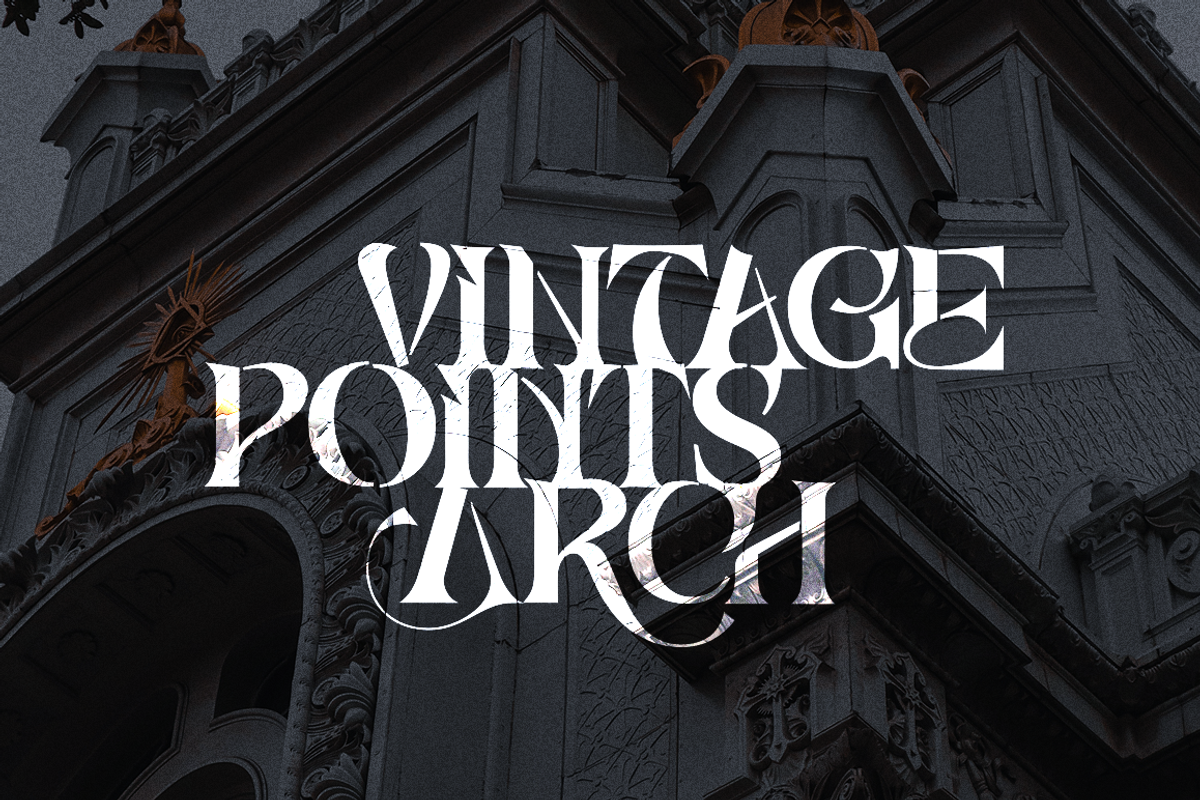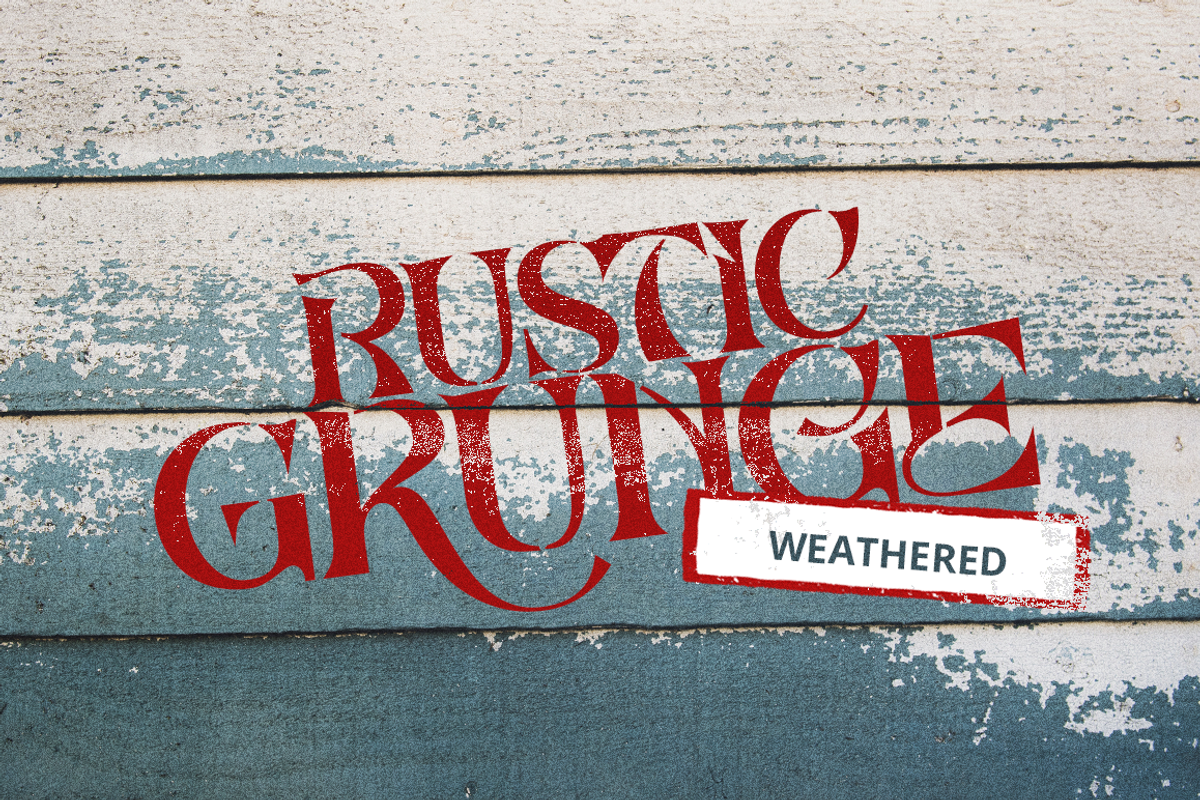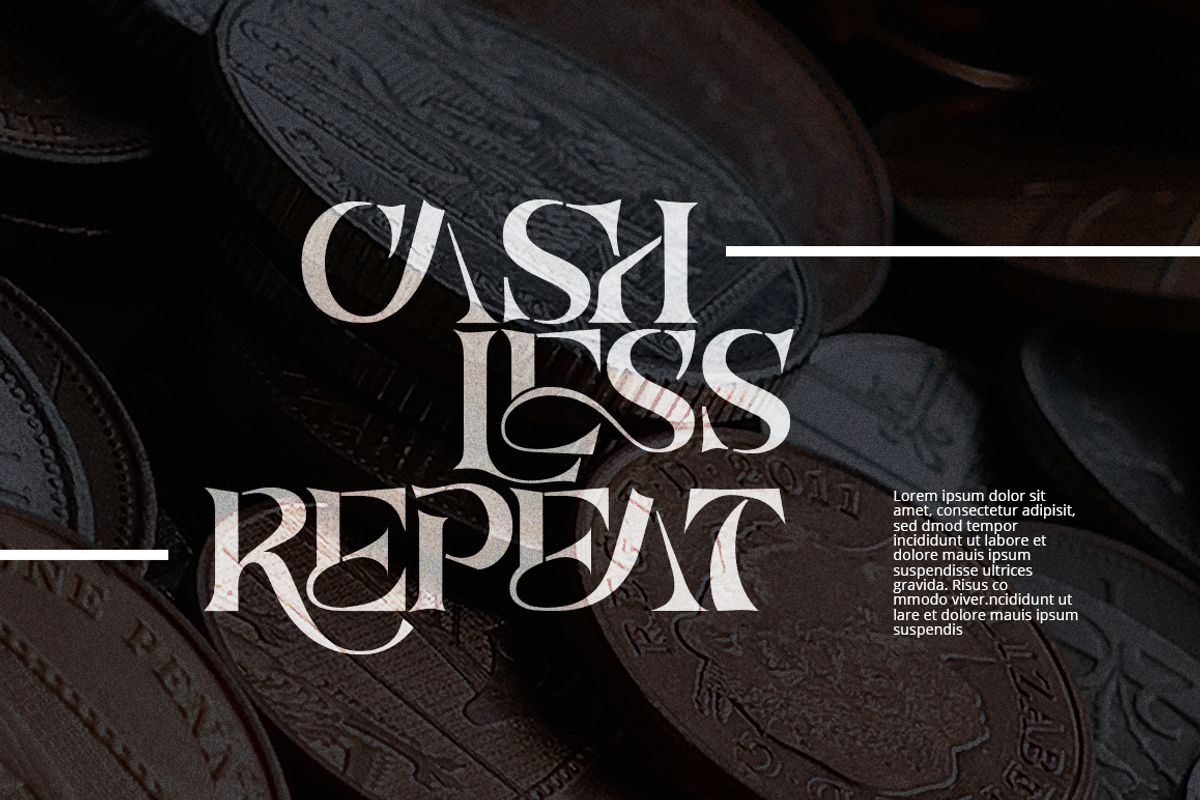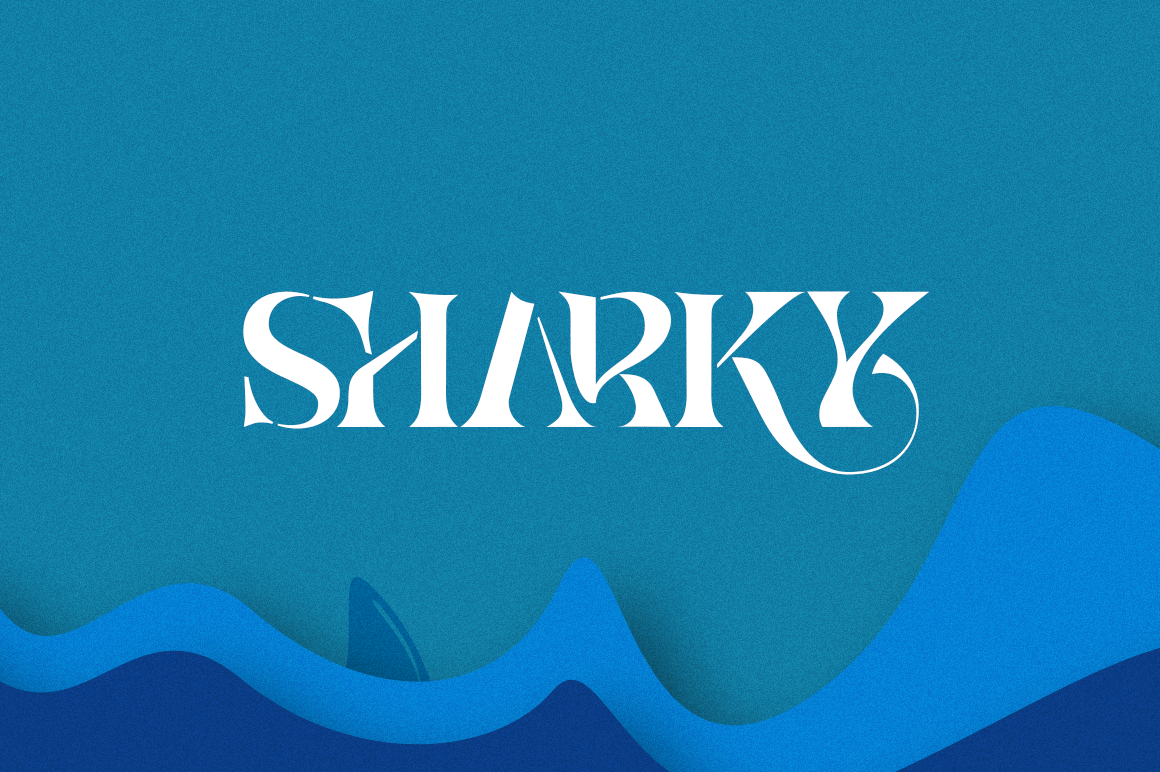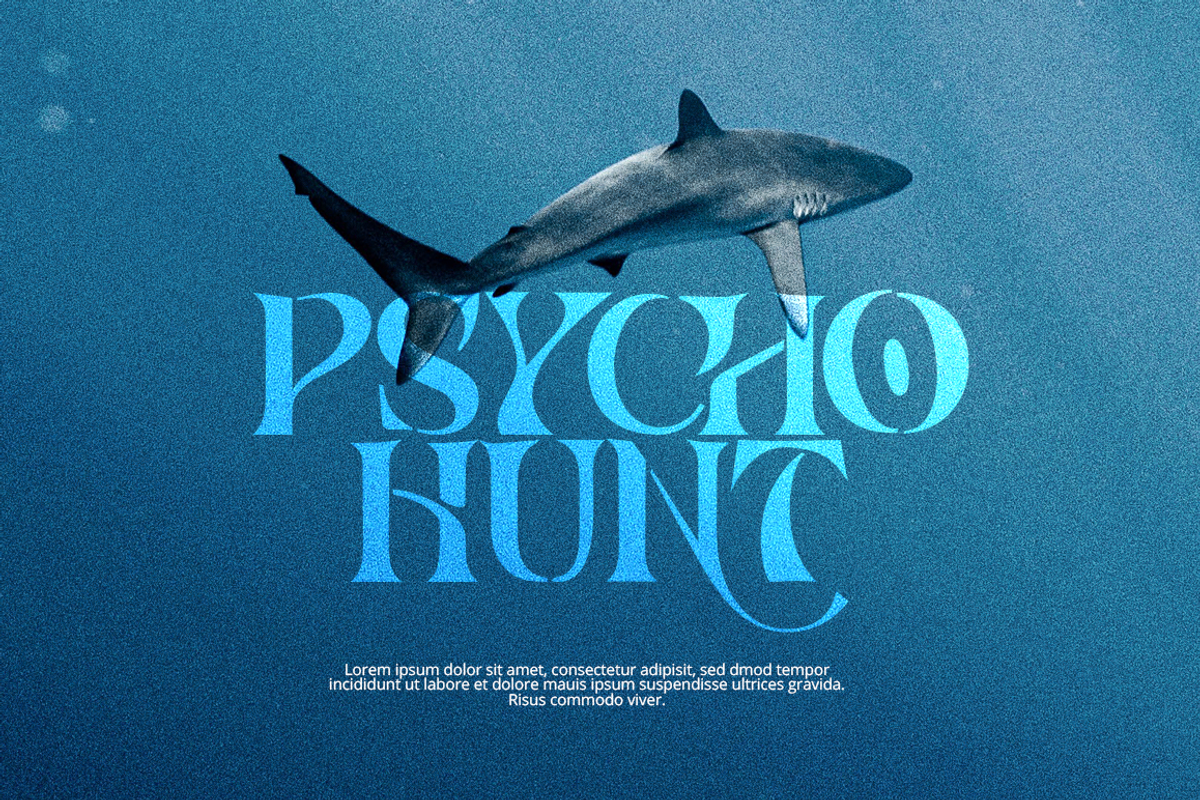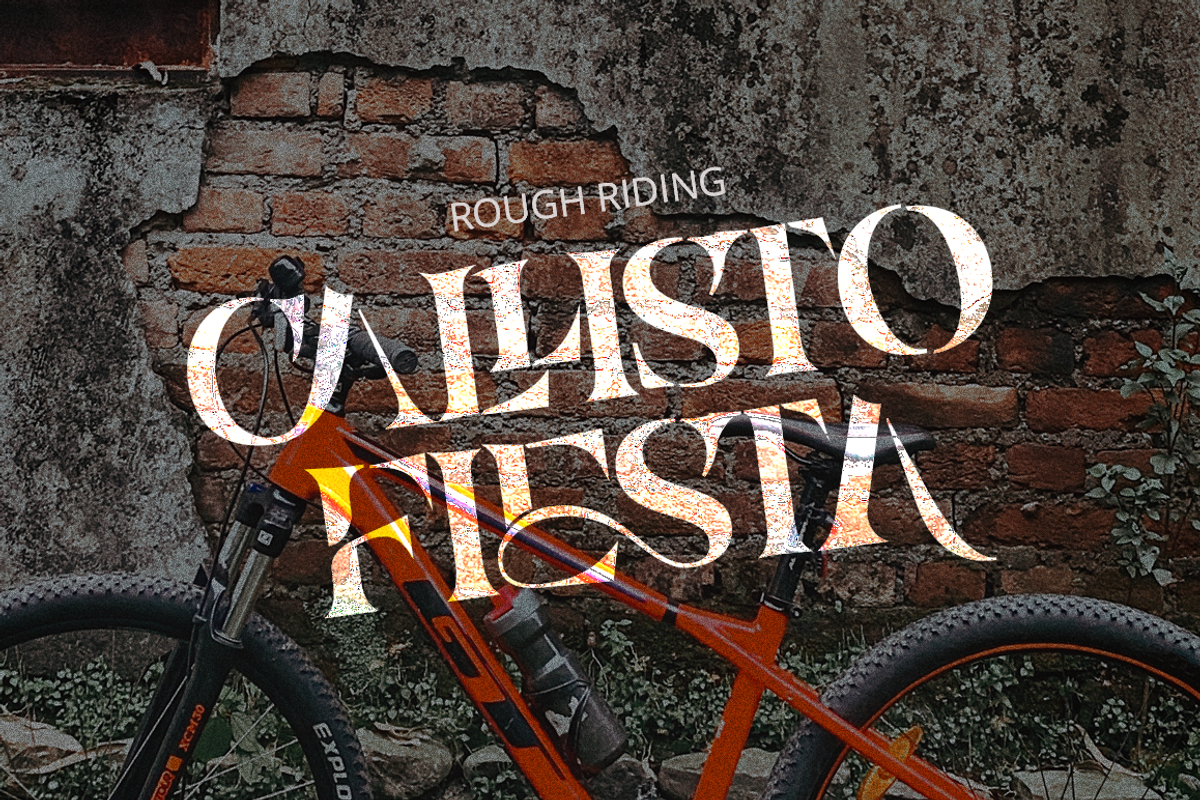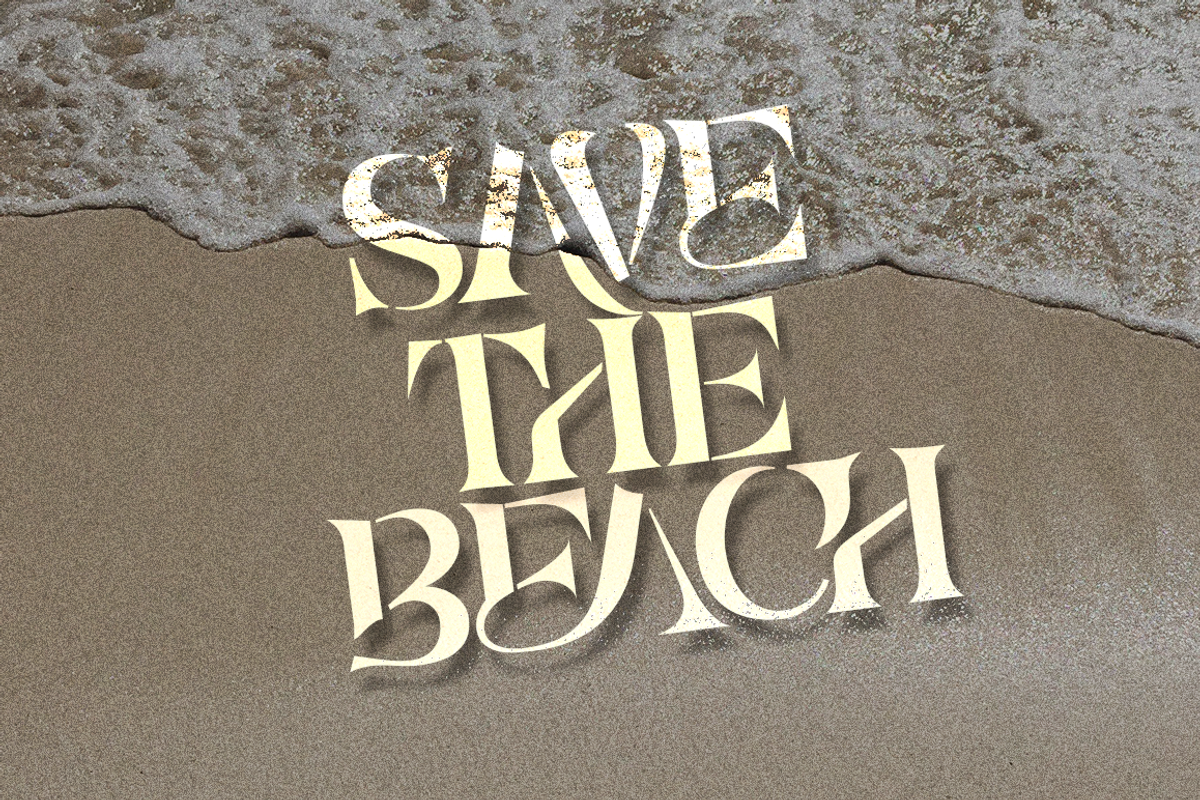
Sharky Elegant Serif Font
Sharky is an unique elegant serif font, created with care. The font is bold sharp point and unique shapes. It come with extra ligatures and alternative. This font is specially created for your branding need such as invitational card, quotes, flyer font, magazine heading layout and any other project.